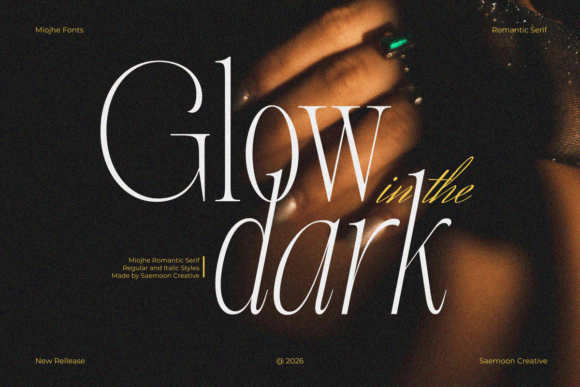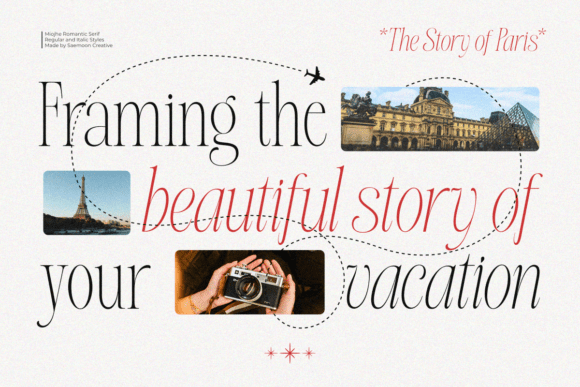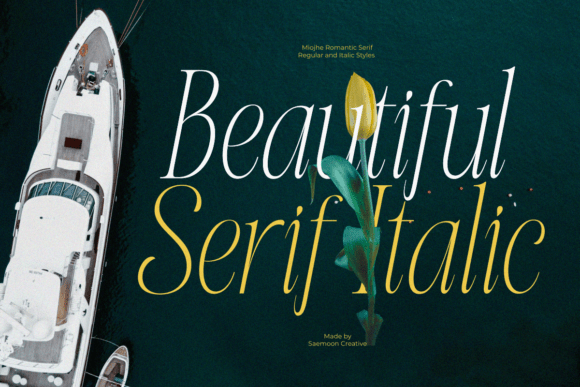
Introduction to Miojhe Font
Imagine you’re a graphic designer working on a wedding invitation project. You’ve been searching for the perfect font to capture the romance and elegance of the occasion. As you browse through your design resources, one font catches your eye – Miojhe Font. Its soft curves, refined details, and carefully crafted ligatures make it the perfect choice for creating a warm and sophisticated look.
Miojhe Font is more than just a design resource; it’s a valuable tool for designers who want to add a touch of high-quality elegance to their creative projects. With its PUA encoding and included ligatures, this font makes it easy to create visually rich typography without extra effort. Whether you’re working on a free download project or designing a premium brand, Miojhe Font is a lovely choice for designers who want to elevate their designs.
Key Features of Miojhe Font
- Features a transparent background, allowing for easy integration into various design elements.
- Unique, modern design aesthetic that can add a touch of sophistication to any creative project.
Honest Review: Miojhe Font
I recently stumbled upon the Miojhe Font, and I must say it’s been a game-changer for my creative projects. This font is a fantastic design resource that can add a touch of elegance to any project.
Some limitations: ⚠️ The font might not be suitable for projects requiring extreme customizability. Additionally, some users might find the font’s style a bit too minimalist for their taste.
Overall, I’m thoroughly impressed with the Miojhe Font. It’s a solid choice for designers looking for a high-quality, free design resource. Whether you’re working on a logo, brochure, or website, this font is sure to deliver.
Tips for Getting the Most Out of Miojhe Font
To get the most out of Miojhe Font, experiment with different font sizes, colors, and styles to find the perfect combination for your design. You can also use it in conjunction with other design elements to create a unique and eye-catching visual effect.
Miojhe Font is perfect for a variety of creative projects, including logo design, branding, and digital art. Its high-quality, transparent background design makes it a versatile resource for designers and artists.